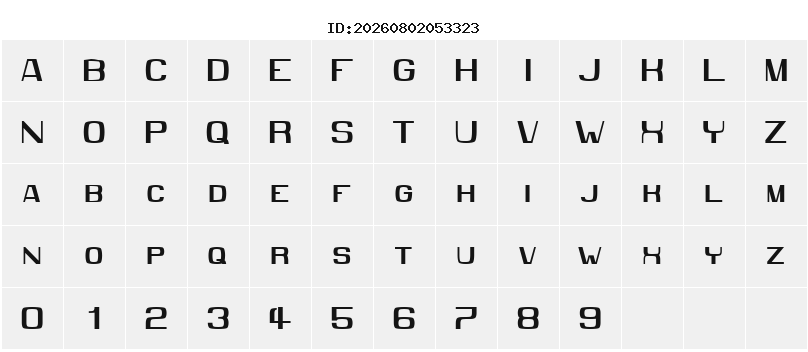
MMX2010 Preview
About MMX2010.ttf
MMX2010.ttf is a modern, elegant sans-serif font designed for ultimate readability and visual harmony. Perfect for branding, headlines, web design, and print materials.